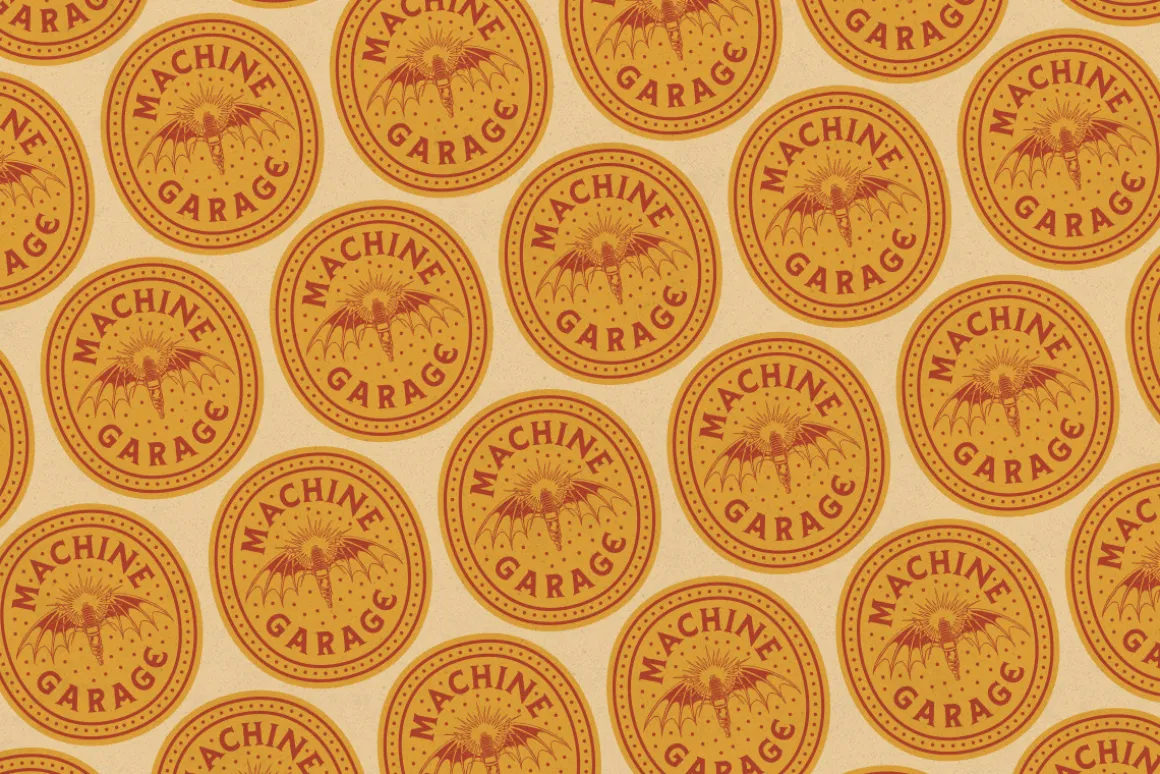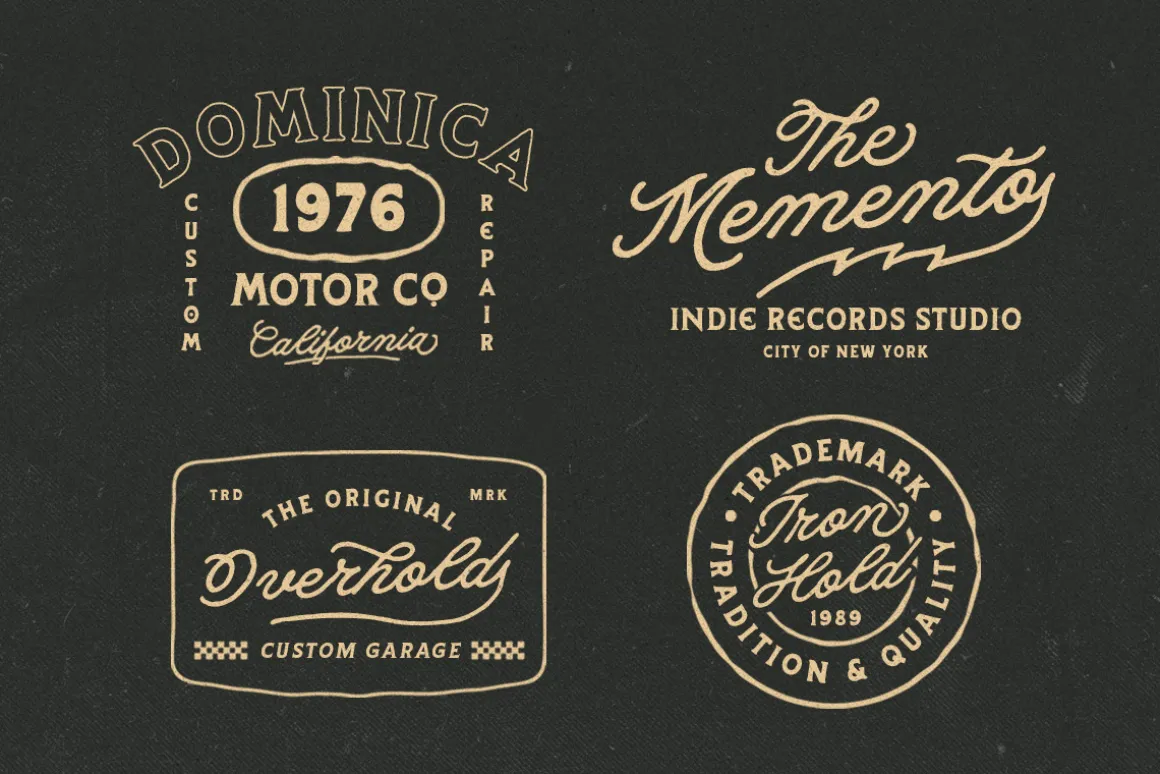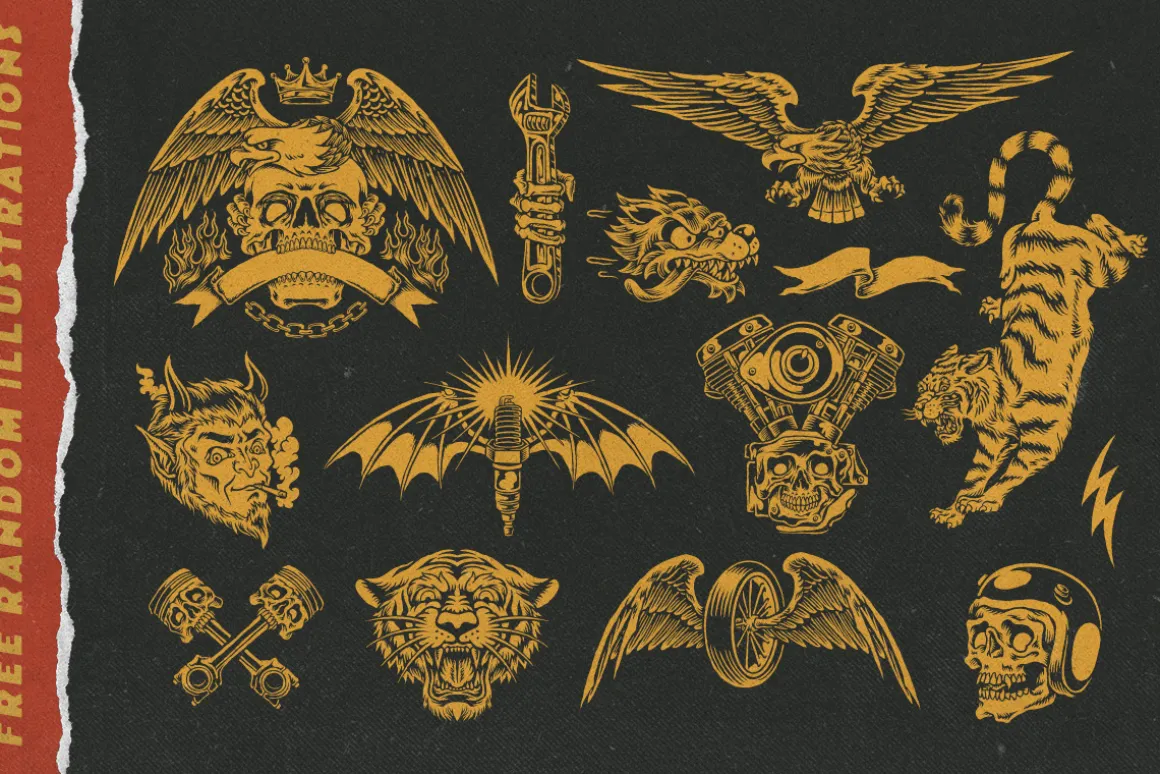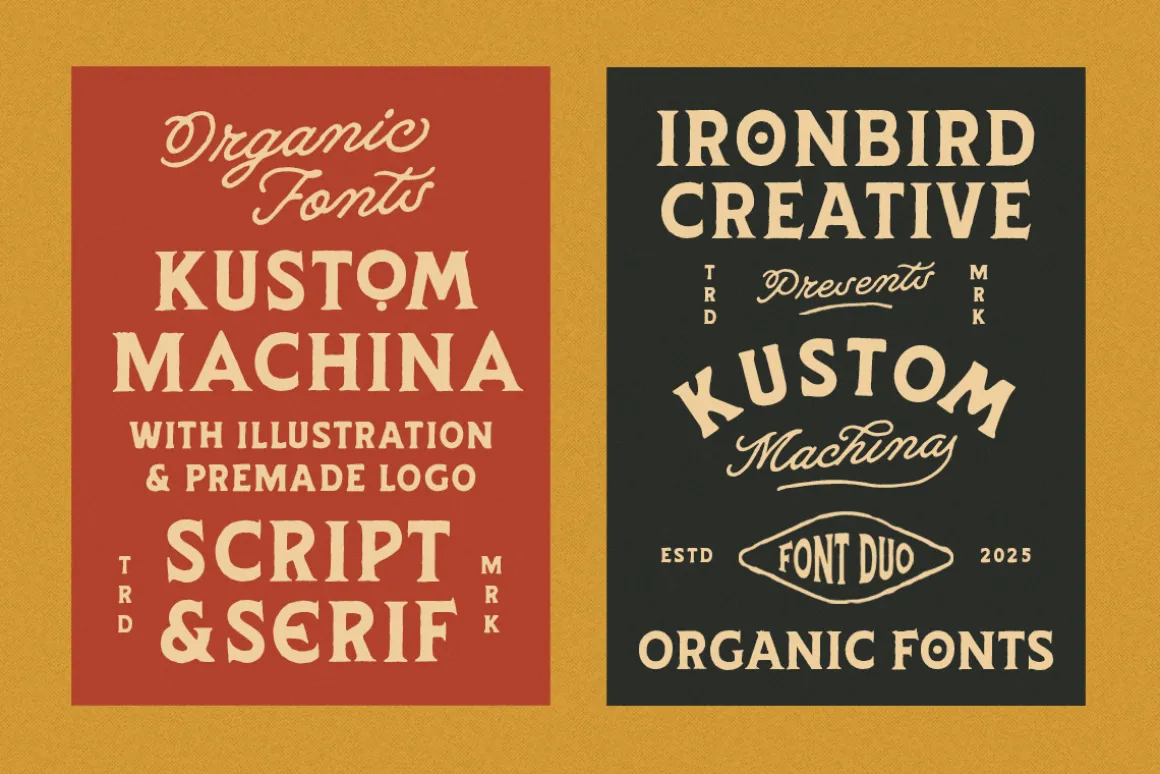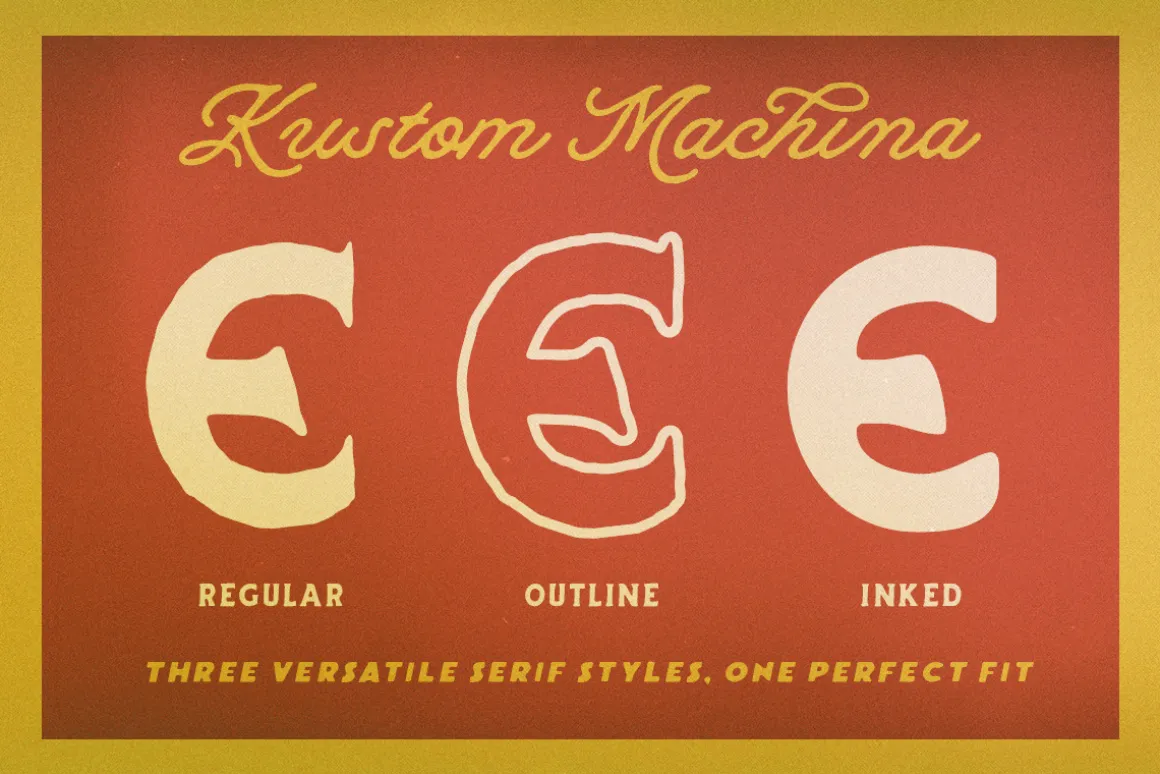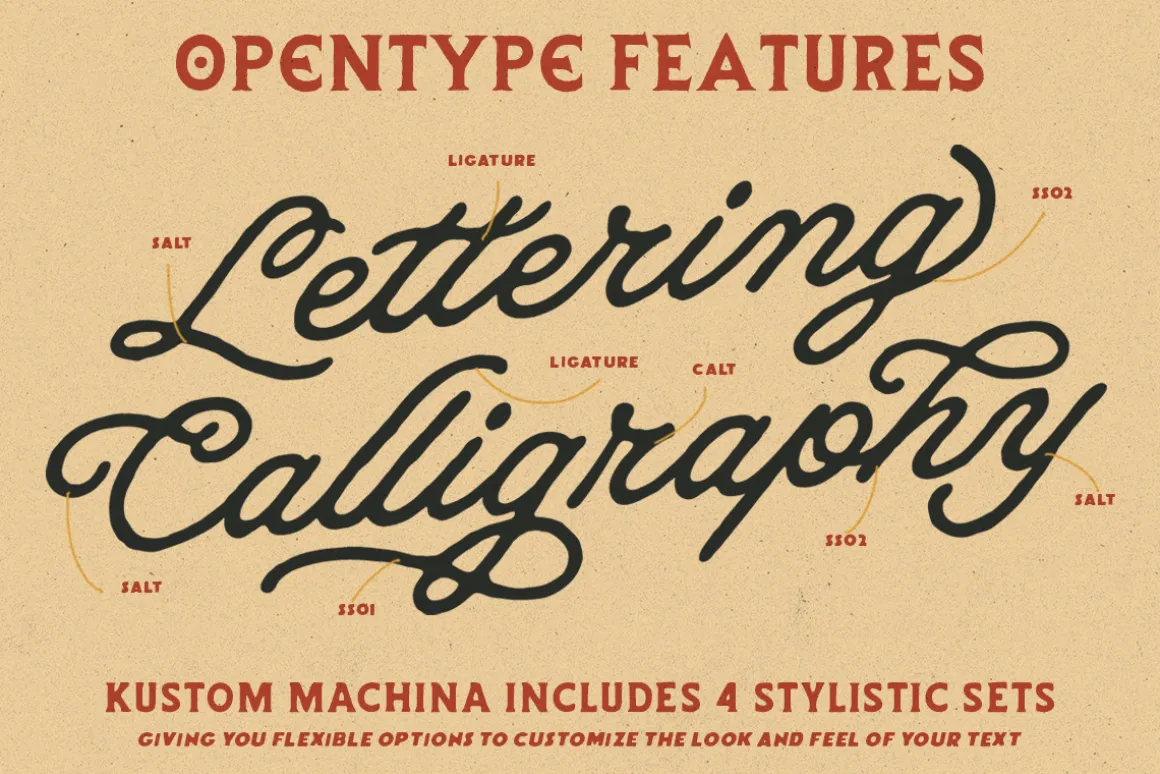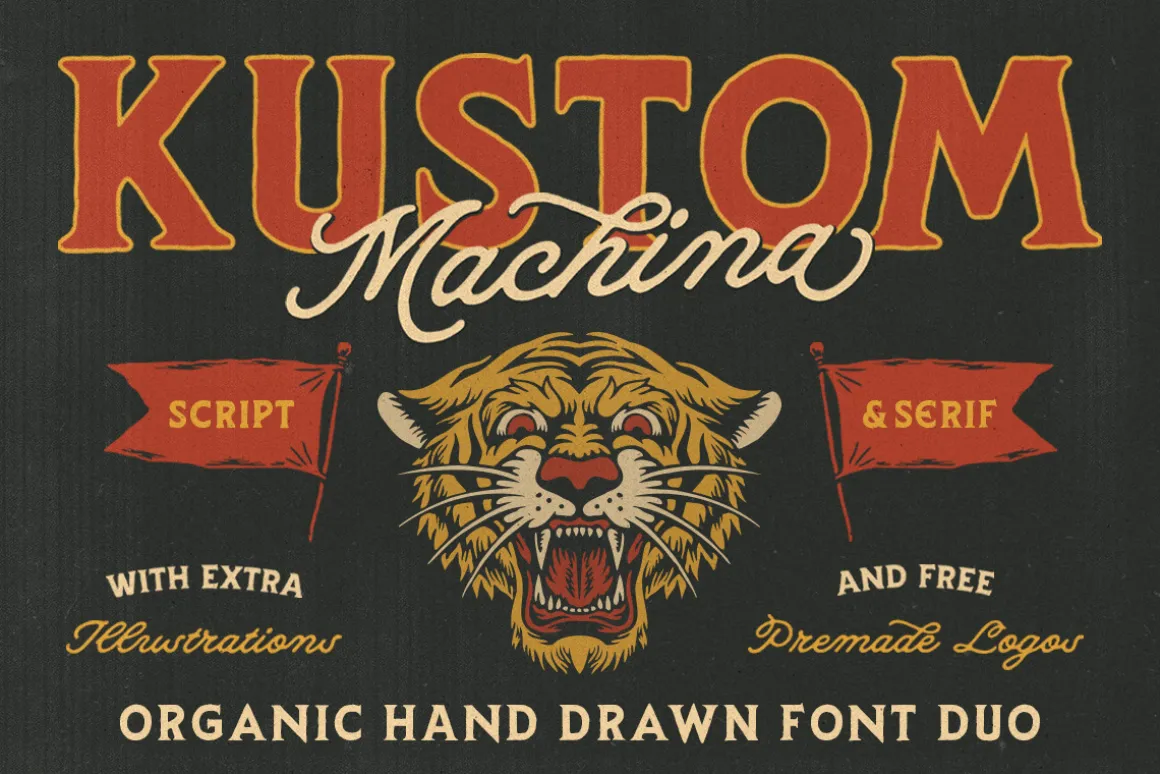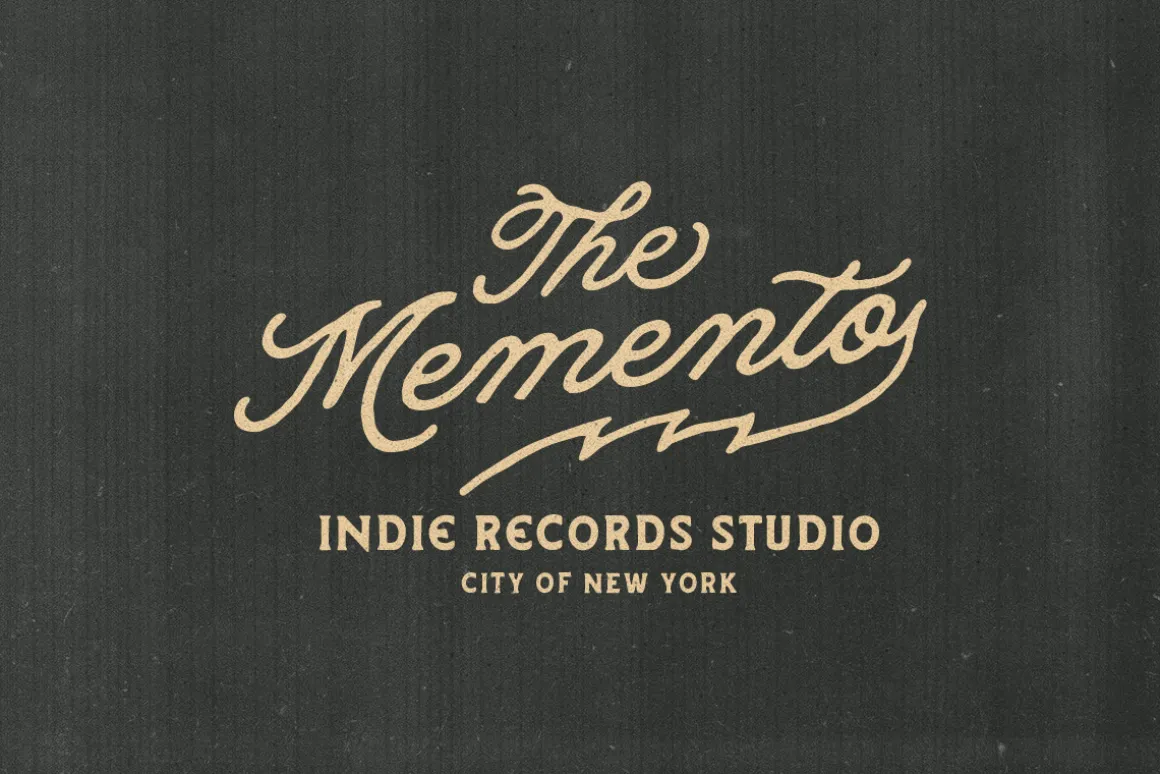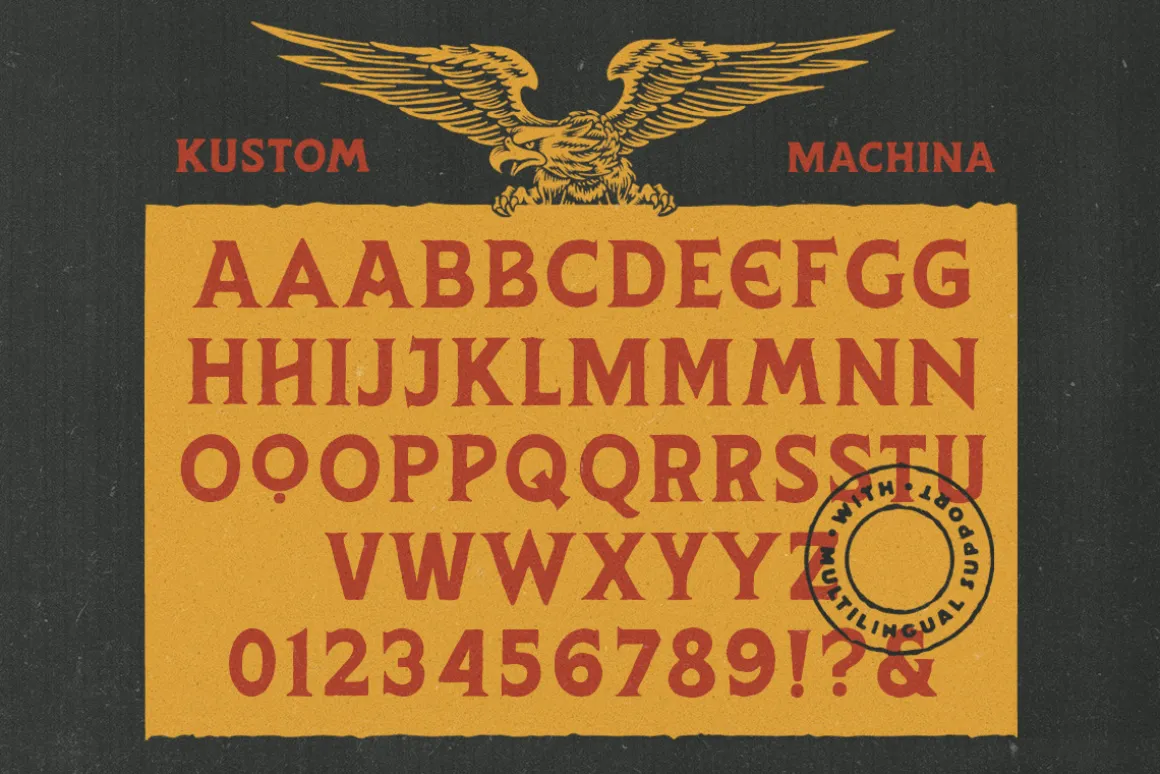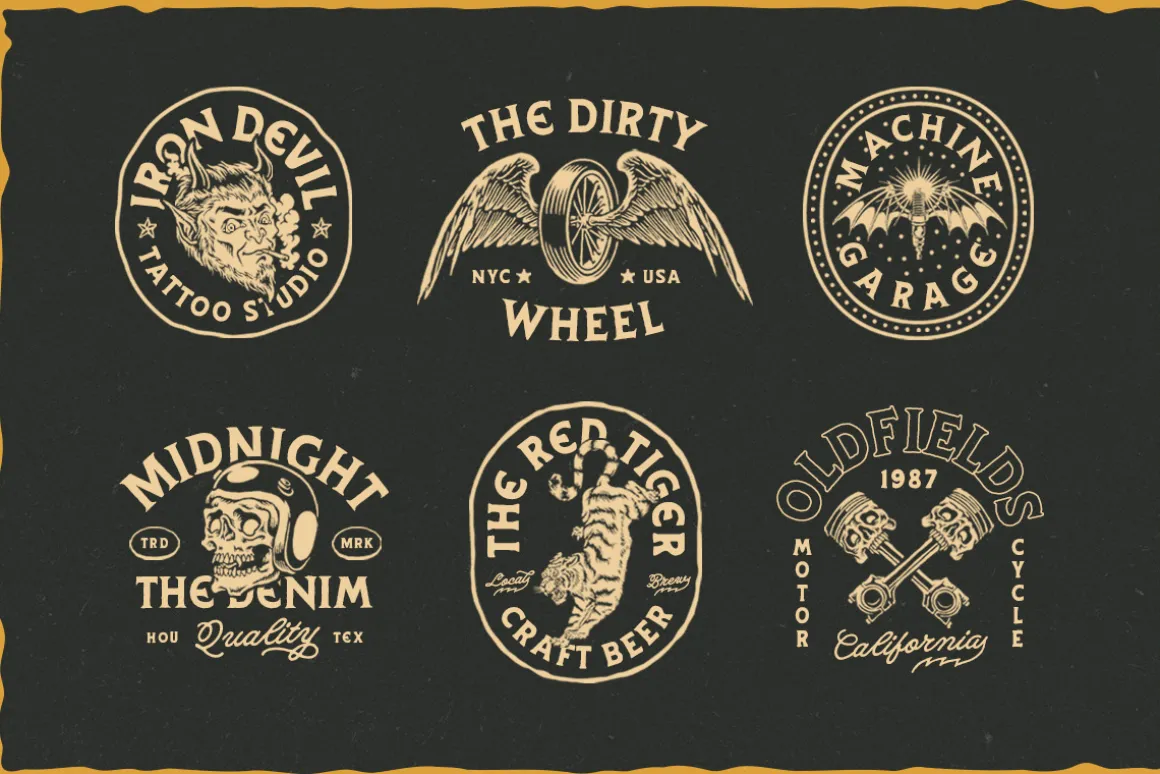
Kustom Machina, includes both Serif & Script styles, along with bonus illustrations and premade logos to make your work stand out. This typeface brings an authentic handcrafted feel and perfect for branding, packaging, posters, apparel, labels, and logos.